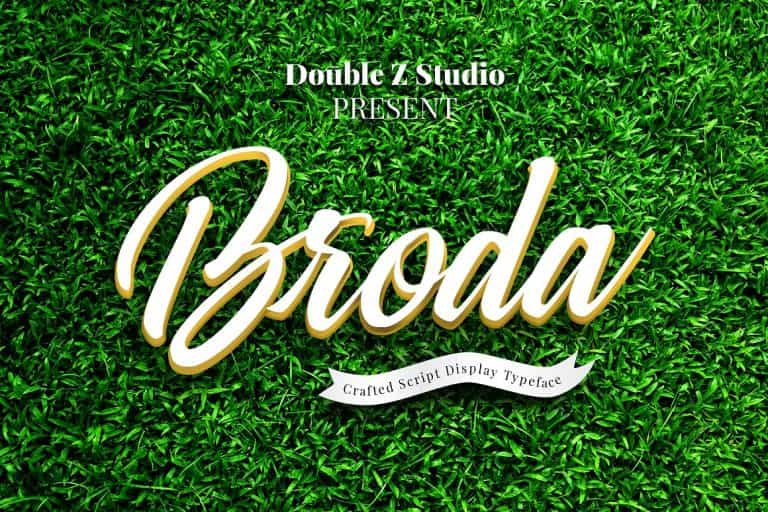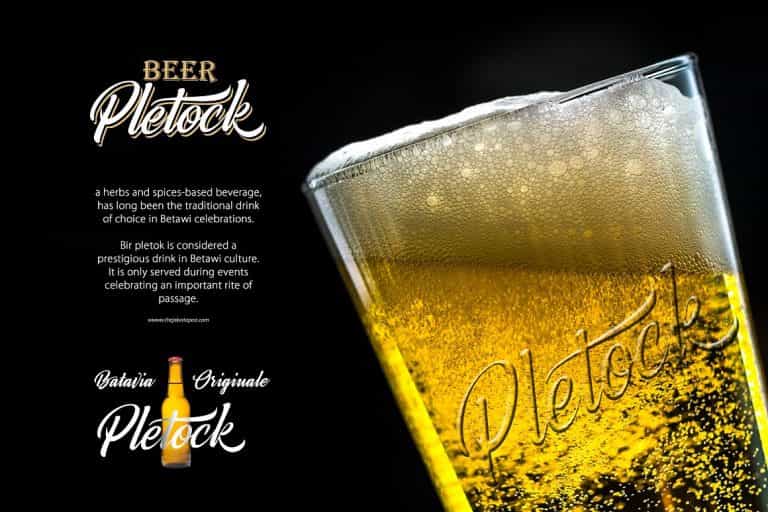
Discover Broda Script Font, part of the Calligraphy Comic collection—a versatile and unique font perfect for adding a personal touch to your projects. Download it for free and enjoy crafting designs with style, from invitations to social media posts. This font is available exclusively for personal use, giving you the freedom to create without limits. Unlock your creativity with Broda Script Font today!
Introducing Broda Font. It is the creation of DoubleZ Studio. This font which is a premium one can be bought on creativemarket but it was too great therefore it is being given for free today to download. Broda is a magnificent and stylish display script. It is an ideal tool for making branding, blog logo, website logo, print ads, book covers and film covers as well as apparel like cards and logos. Opentype features allow you to have more options in designing.